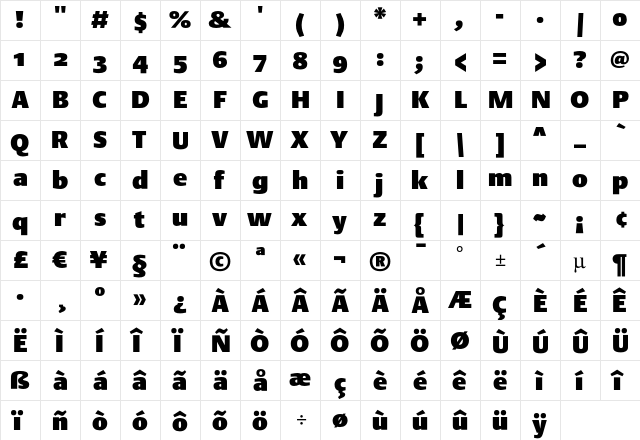
DTLArgoST UltraHeavy
Design Context for DTLArgoST Typeface
DTLArgoST offers clean, dependable letterforms without strong stylistic allegiance, making it a practical choice for designers who need flexibility.
Pro Tip: Use DTLArgoST in both headline and body roles to test its range before committing to a single application.